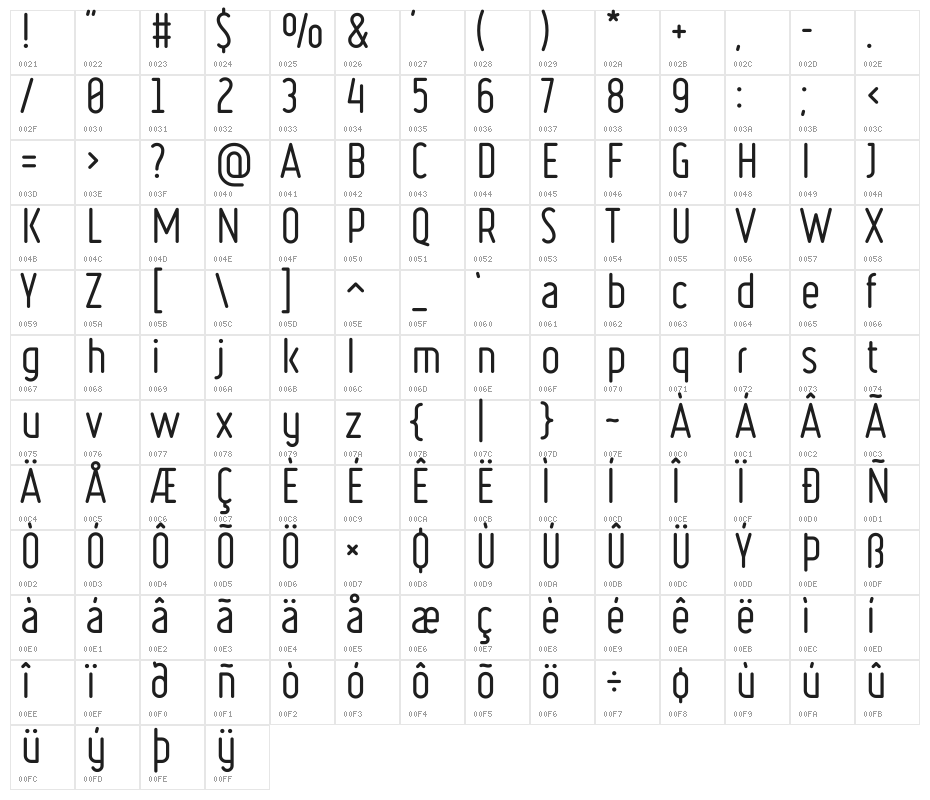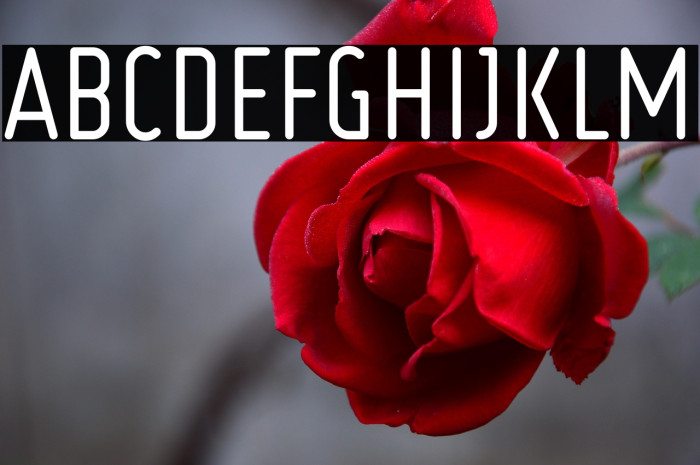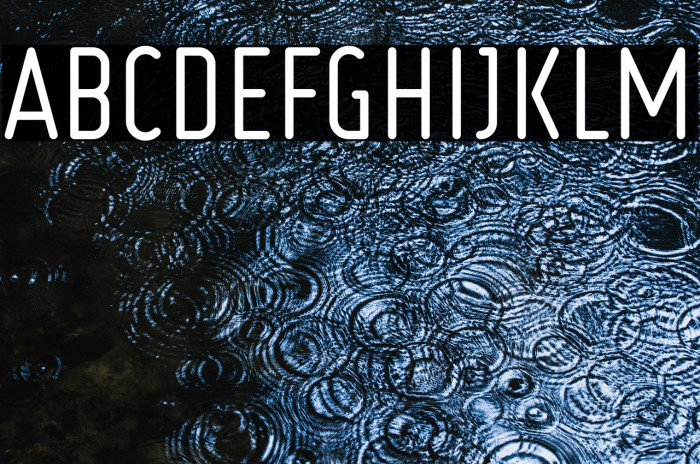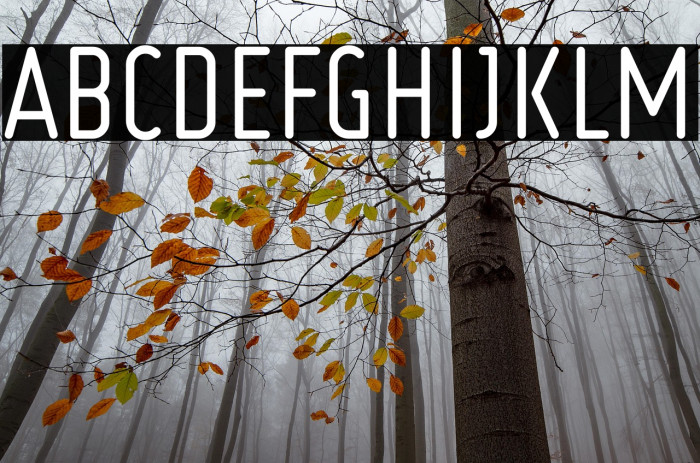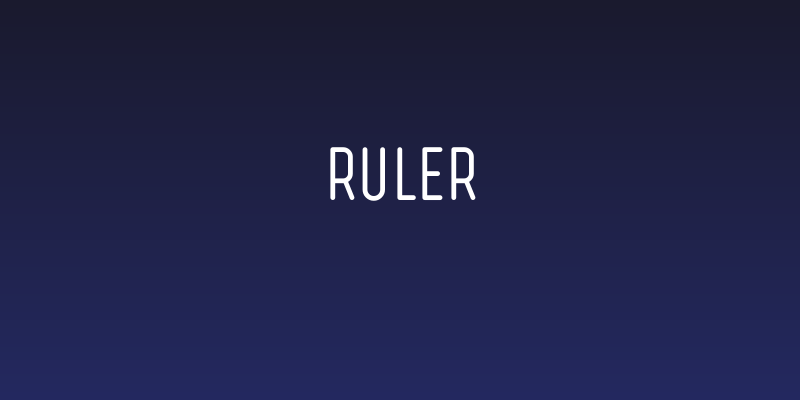
Ruler Font
Ruler Description
This font features a clean and modern sans-serif design with rounded edges, giving it a friendly and approachable appearance. The characters are evenly spaced, providing a balanced and harmonious look. The uppercase letters are tall and slightly condensed, while the lowercase letters maintain a consistent height, enhancing readability. The numerals are clear and distinct, making them suitable for various applications. Special characters are well-defined, adding versatility to the font's use. Overall, this font's simplicity and clarity make it ideal for both digital and print media.
| Use Case | Headlines, Body text, Logos |
| Proposed Projects | Ideal for branding, signage, user interfaces, and educational materials. |